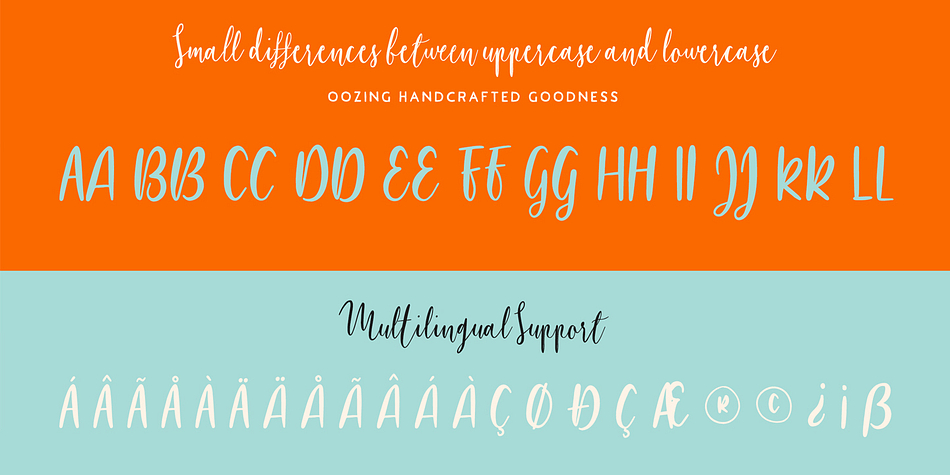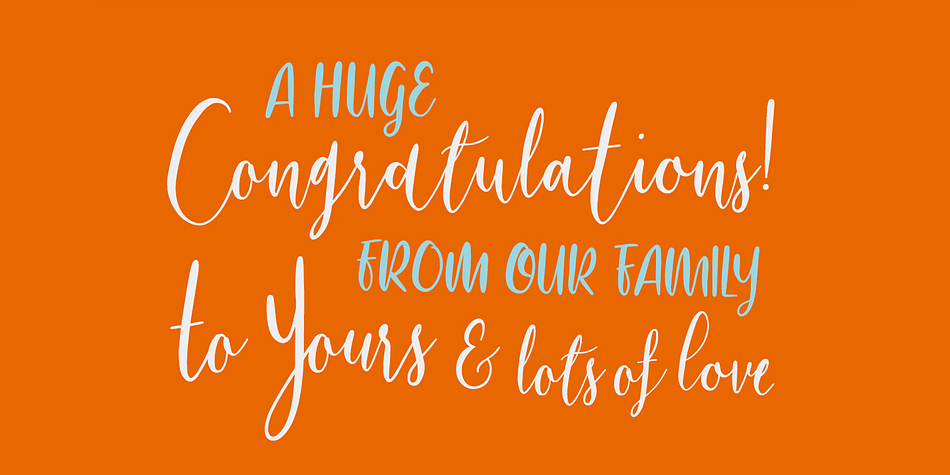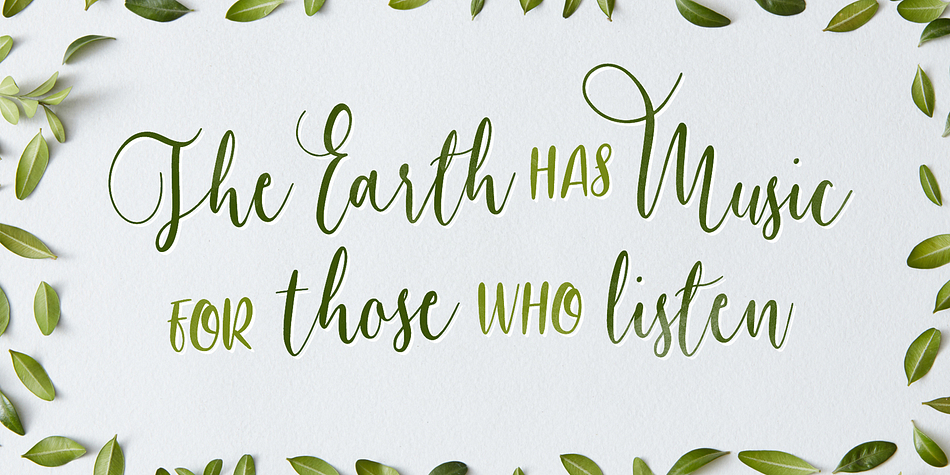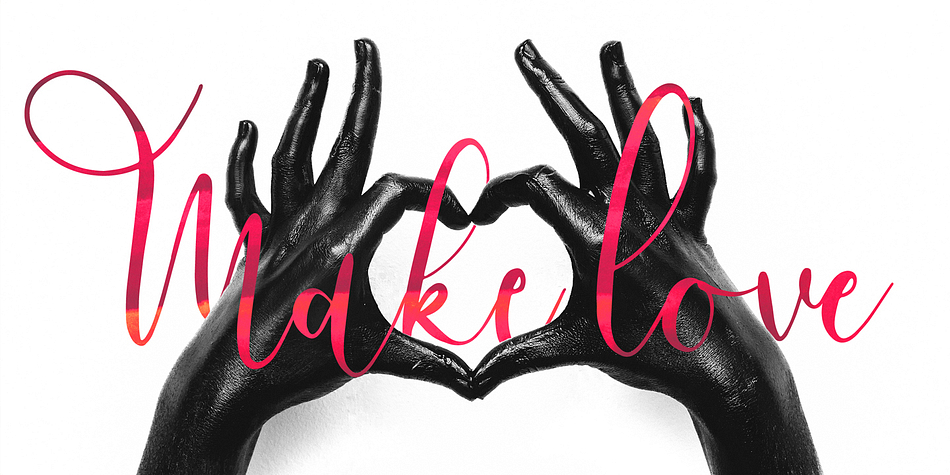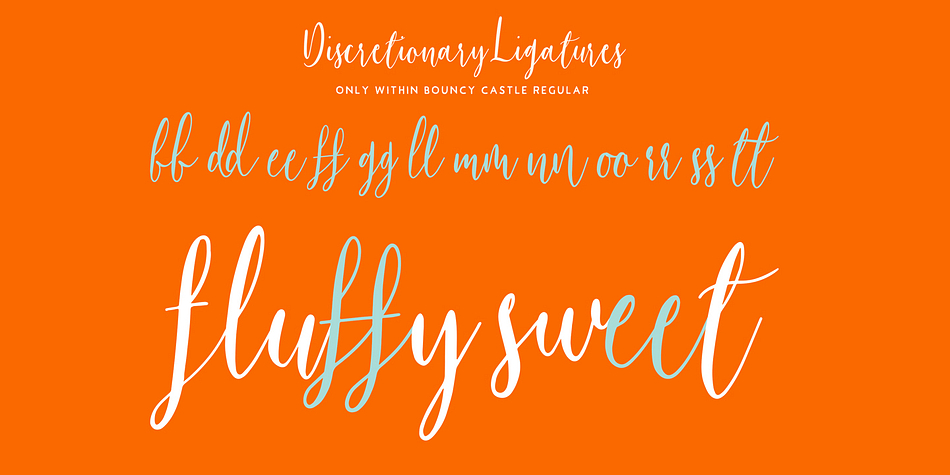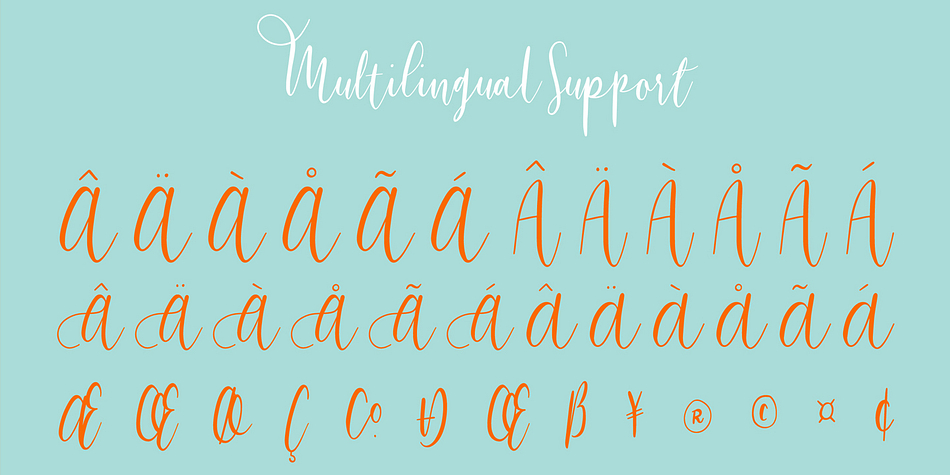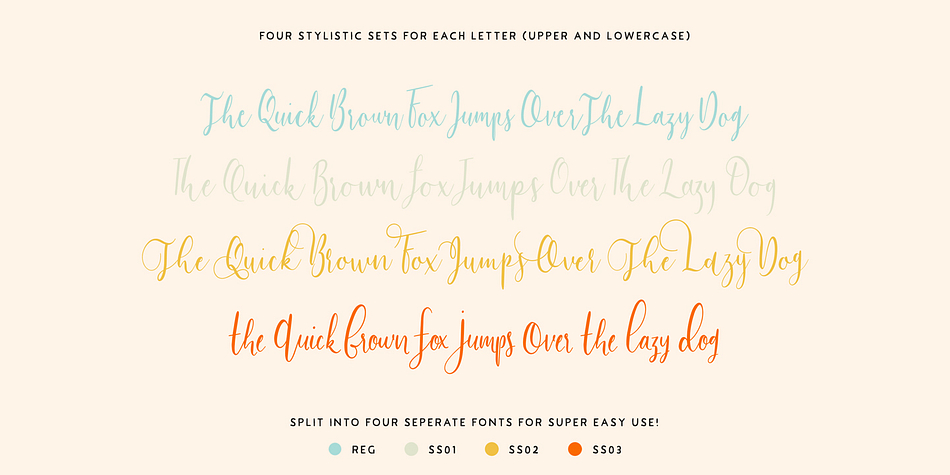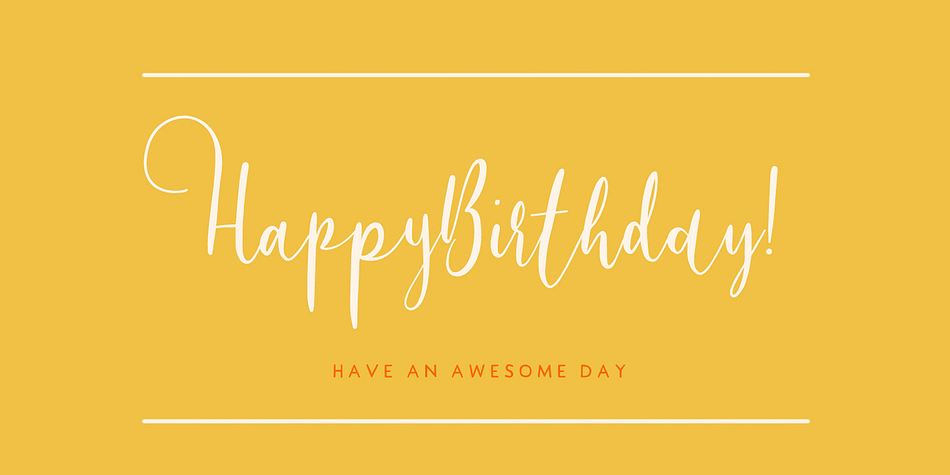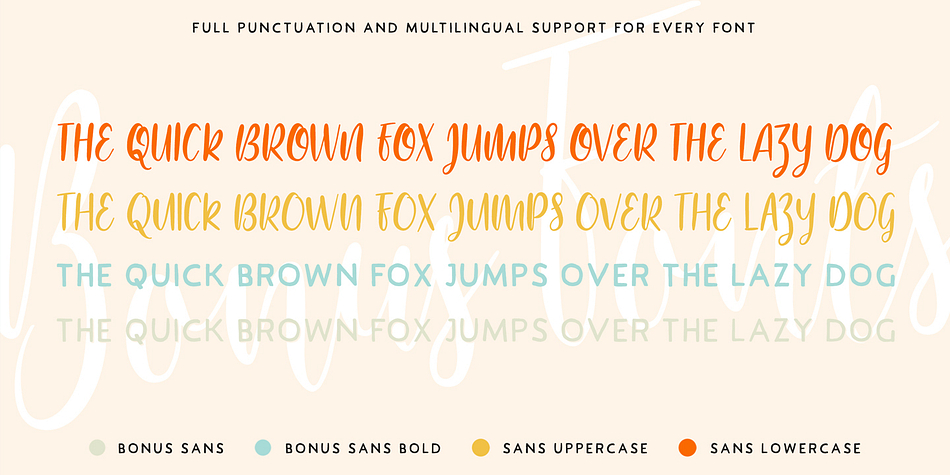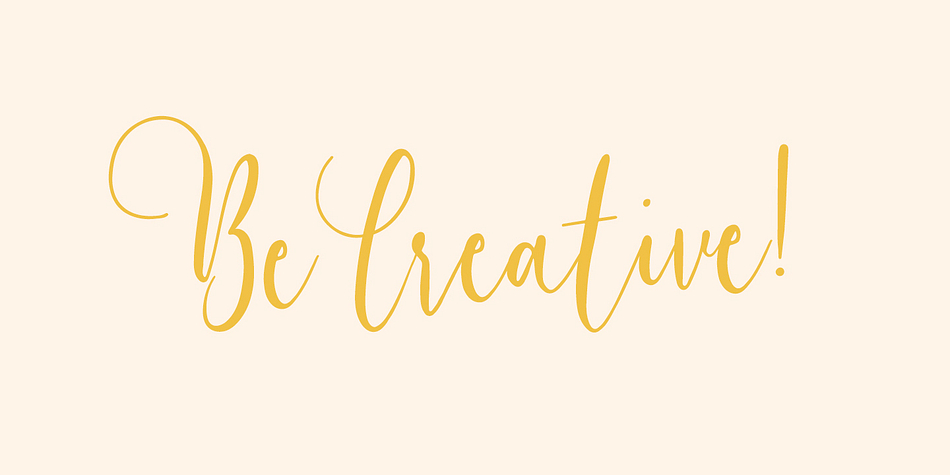
Designed by Tom White, Bouncy Castle is a multiple classification font family. This typeface has seven styles and was published by Tom Chalky.
Say hello to Bouncy Castle! A playful, handwritten, and modern calligraphy font family with 4 sets of alternative letter styles to effortlessly switch between for maximum creativity and authenticity.
The family was designed to look incredible within wedding and event invitations, flyers and other printouts, logos and branding, apparel, and everything in between. It’s a truly flexible family and I hope that you love it as much as I do.
No special software required to access letter alternatives: The calligraphy font set has been split into 4 individual fonts, making life a whole lot easier for you to switch between all of the wonderful letter combinations to truly bring your work to life!
The idea behind Bouncy Castle: To create an authentic and fun calligraphy font that packed a creative punch. With thousands of possible letter combinations, a bouncy baseline and a clean yet playful appearance, it delivered exactly that and so much more!